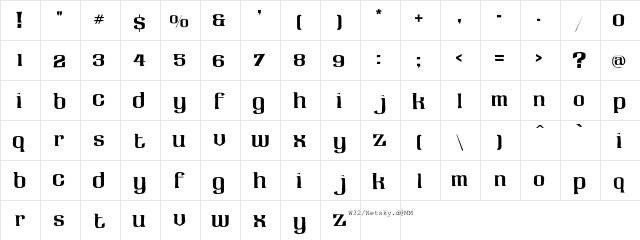
LHF Claretian Regular
| Foundry | Rob Cooper for Letterhead Fonts |
| Designer | Rob Cooper |
Design Context for LHF Claretian Typeface
LHF Claretian takes a measured approach to typography — its balanced proportions and neutral character make it a reliable workhorse for both digital and print work.